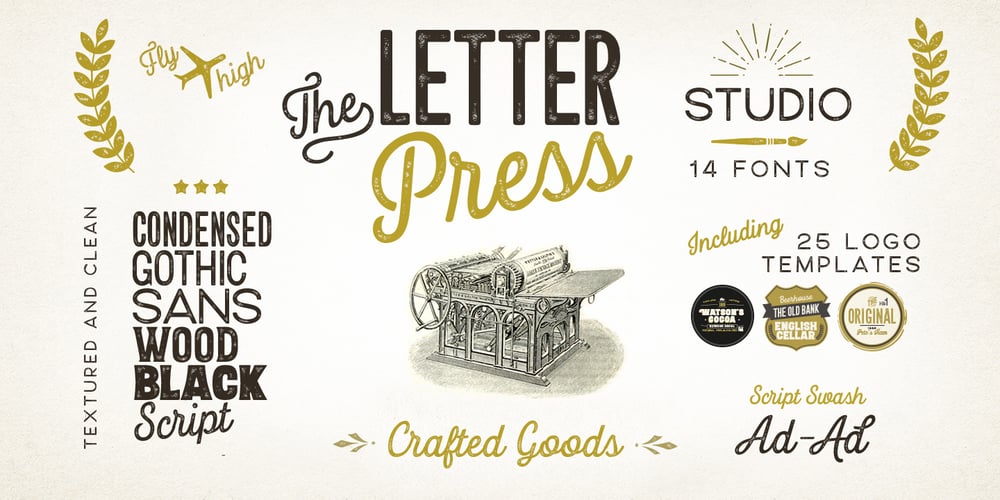
Letterpress Studio
Letterpress Studio font
Letterpress Studio Font Family was designed by Emil Karl Bertell and published by Fenotype. Letterpress Studio contains 18 styles and family package options. Letterpress Studio -Crafted Vintage Goods Letterpress Studio includes following • 7 fonts – a textured and clean version of each • Ornaments • Catchwords • 25 Logo Templates Letterpress Studios core is seven fonts – textured and clean version of each. Fonts are designed in same proportions and work great together. Here’s a short introduction to the fonts: • Letterpress Script -A connected script with lot’s of OpenType features • Letterpress Script Bold -Bold version of Letterpress Script • Letterpress Condensed -A condensed sans-serif typeface with swash uppercase characters on • Letterpress Gothic -A sans-serif typeface with swash uppercase characters • Letterpress Sans -An extended sans-serif typeface with swash uppercase characters • Letterpress Wood -A woodcut style serif typeface with swash uppercase characters • Letterpress Black -A black woodcut style serif typeface with swash uppercase characters • Letterpress Ornaments -A set of pictograms, ornaments, borders and badges (OTF, AI & PDF) • Letterpress Catchwords -A set of over 100 woodcut-style catchwords (OTF, AI & PDF) All fonts have West European, Central European, Baltic, Turkish and Romanian character sets. Fonts come in OTF format. TTF are also available but OpenType features won’t work with them. Letterpress Templates -25 templates (AI) Letterpress Templates is a set of 25 ready made compositions with font pairings, shapes, ornaments and ready made 2-4 color schemes for each. Templates can be used as such or as a starting point for your own project. Download Letterpress Templates here.